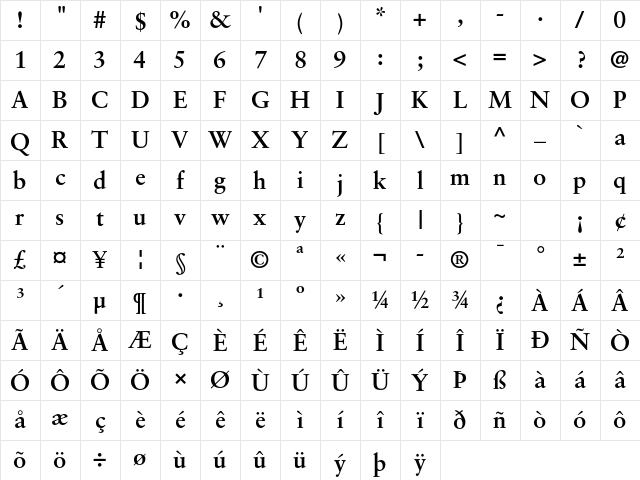
Sabon LT Std Bold
Designer: Jan Tschichold
Design Context for Sabon LT Std
Sabon LT Std is a composed and adaptable typeface that performs quietly and consistently across a wide range of design contexts. Its bold stroke weight gives it real presence on the page.